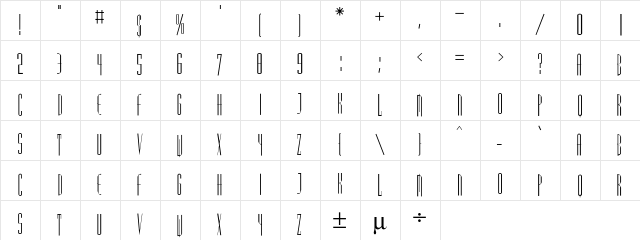
Splain Regular Font Preview
Splain Regular
Design Context for Splain Typeface
Splain offers clean, dependable letterforms without strong stylistic allegiance, making it a practical choice for designers who need flexibility.